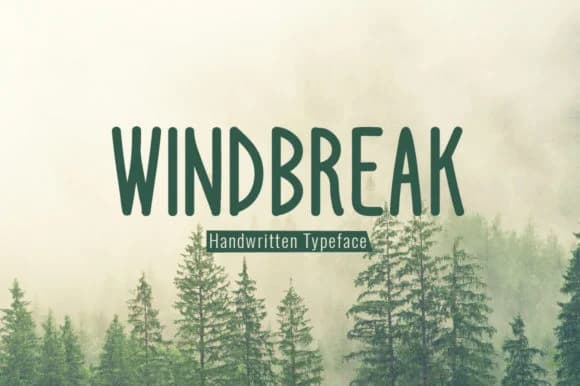
Windbreak by Spanking Fonts is a handwritten script that merges distinctive character with reliable legibility across all sizes. Many display scripts force designers to choose between personality and readability, but this one doesn't make that compromise. The flowing letterforms feel organic and authentic without sacrificing clarity, which genuinely sets it apart in this category.
Its naturally irregular stroke quality gives designs a handcrafted appearance that people respond to emotionally. You'll find it invaluable for wedding invitation suites where elegance and personal touch are both essential, boutique skincare and beauty packaging, artisan food labels, and greeting card designs. It works equally well for custom stationery projects, hand-painted sign lettering, craft business branding, and merchandise tags. Clarity holds up whether you're using it for large headlines or smaller supporting text, giving you genuine flexibility in how and where you deploy it.
This is the kind of script that works through personality rather than just decoration. Brands and designers working on projects that need warmth, sophistication, and authentic human feeling reach for fonts like this consistently. The handwritten quality reads as intentional and carefully considered, never throwaway or forced. Grab Windbreak on Creative Fabrica and see what it brings to your next project.
Windbreak Font is a script font that shines as a display or heading face. Pair it with a clean sans-serif or serif font for body text β the contrast creates a clear hierarchy while the two styles stay balanced and easy to read.